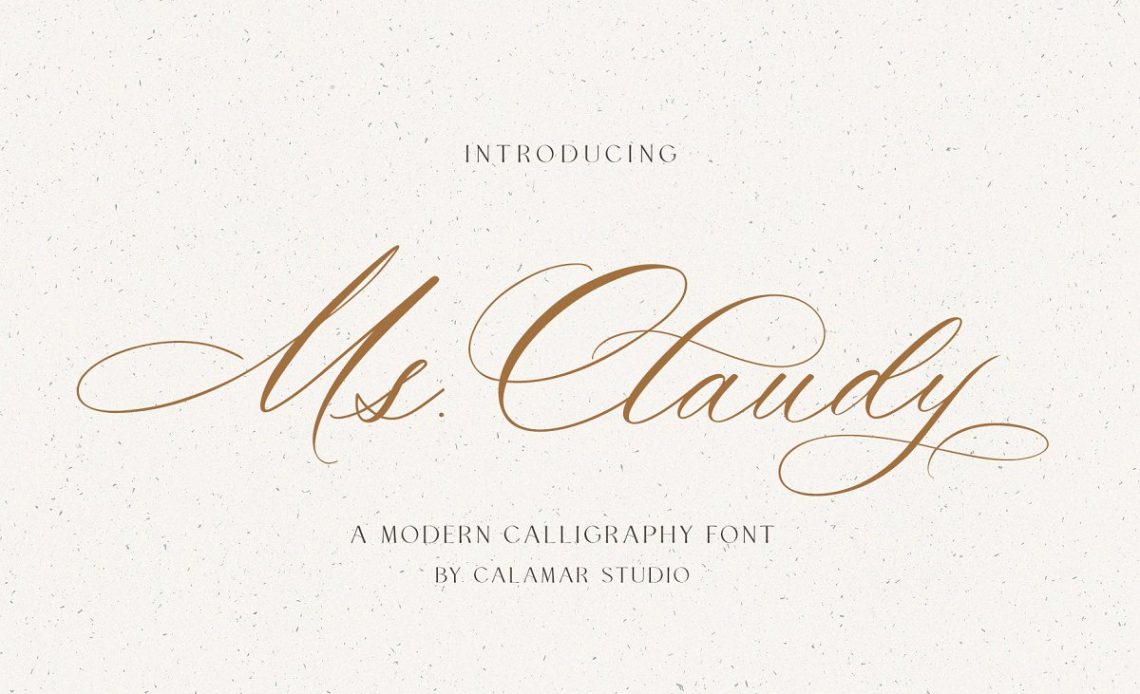
Introducing Ms. Claudy - a modern calligraphy font that exudes elegance and style, making it the perfect choice for wedding invitations, save the date cards, and feminine branding. Created by Oksana Petrenko, this font family features a full set of uppercase and lowercase basic characters, numerals, and punctuation, as well as a variety of ligatures and stylistic alternates that perfectly re-create natural calligraphy.
With Ms. Claudy, you'll be able to add a touch of sophistication to your designs, whether you're a professional graphic designer or a DIY bride. The font is available in OTF, TTF, and WOFF formats, and supports Western European, Central European, and South Eastern European languages, ensuring that you can create stunning designs in any language.
What sets Ms. Claudy apart is the attention to detail that went into its design. The font is rich in character and texture, thanks to the carefully crafted ligatures and stylistic alternates. Whether you're looking for a font that is playful or elegant, Ms. Claudy has something to offer.